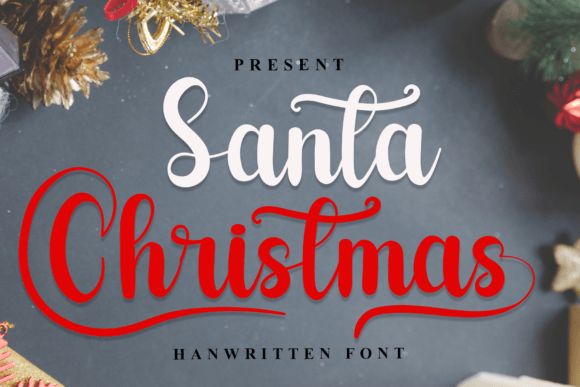
Introducing Santa Christmas Font, the ultimate choice for anyone seeking the best font for T-shirt design! This exquisite handwritten font, created by the talented designers at PiPi Creative, is set to become your new favorite. With its perfect blend of classy calligraphic influences and modern freshness, Santa Christmas Font is bound to capture your heart and elevate your projects to new heights.
When it comes to T-shirt design, finding the right font is crucial. It needs to be eye-catching, captivating, and most importantly, it should reflect your unique style. Santa Christmas Font checks all these boxes and more. Its beautifully crafted script style adds a touch of elegance and sophistication, making it perfect for creating stunning designs that stand out from the crowd.
What sets Santa Christmas Font apart is its versatility. Whether you're working on a festive holiday design or a trendy fashion statement, this font seamlessly adapts to any concept you have in mind. Its timeless appeal makes it suitable for a wide range of projects, ensuring that you'll never run out of creative possibilities.
But Santa Christmas Font isn't just about aesthetics. It's also packed with emotion and personality. Each stroke and curve exudes warmth, joy, and the spirit of the holiday season. With every letter, you'll feel the excitement of Christmas, making it an ideal choice for spreading cheer and capturing the attention of your audience.
The attention to detail in Santa Christmas Font is truly remarkable. From the delicate curves to the precise lines, every element has been carefully crafted to perfection. This attention to detail ensures that your designs will look professional and polished, leaving a lasting impression on anyone who sees them.